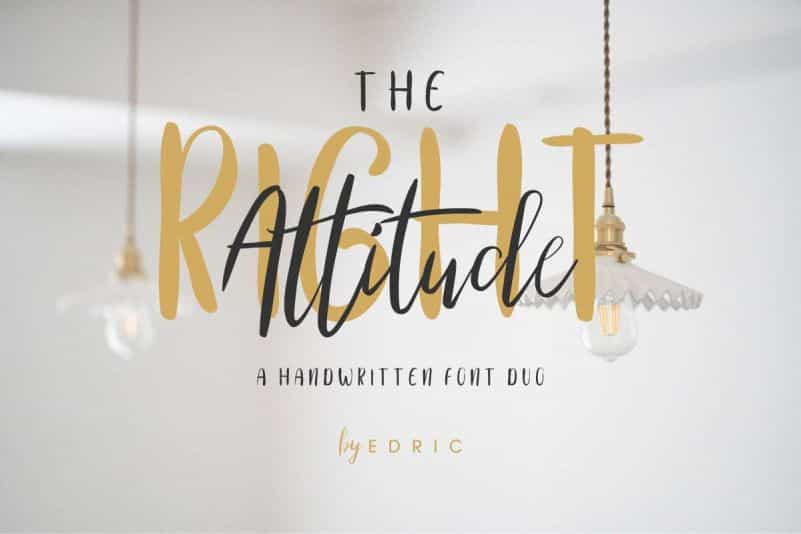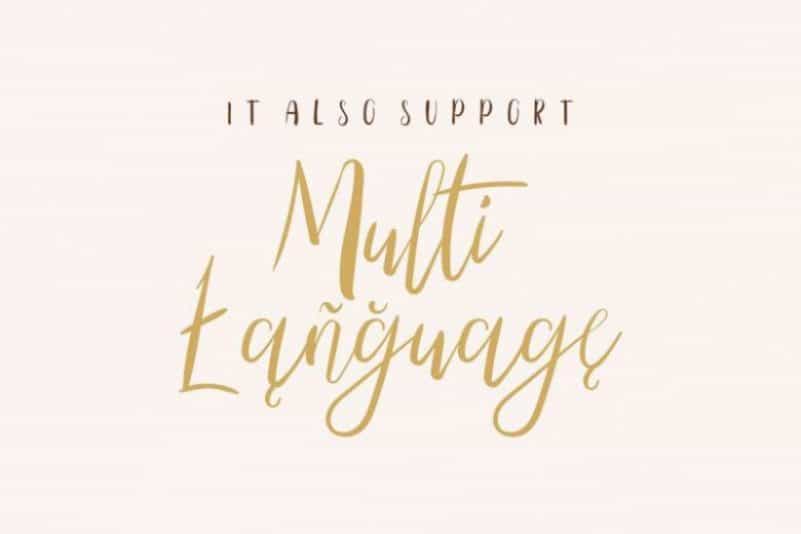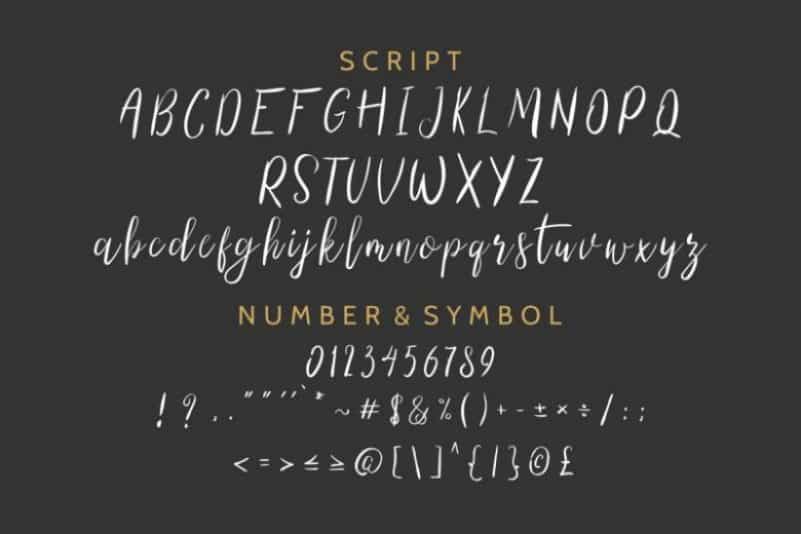
Discover The Right Attitude Script Font Duo, part of the Sans Serif Handwritten collection—a versatile and unique font perfect for adding a personal touch to your projects. Download it for free and enjoy crafting designs with style, from invitations to social media posts. This font is available exclusively for personal use, giving you the freedom to create without limits. Unlock your creativity with The Right Attitude Script Font Duo today!
Introducing our newest font : The Right Attitude Script Font Duo! This is a new duo font : Calligraphy Script and Sans Display.